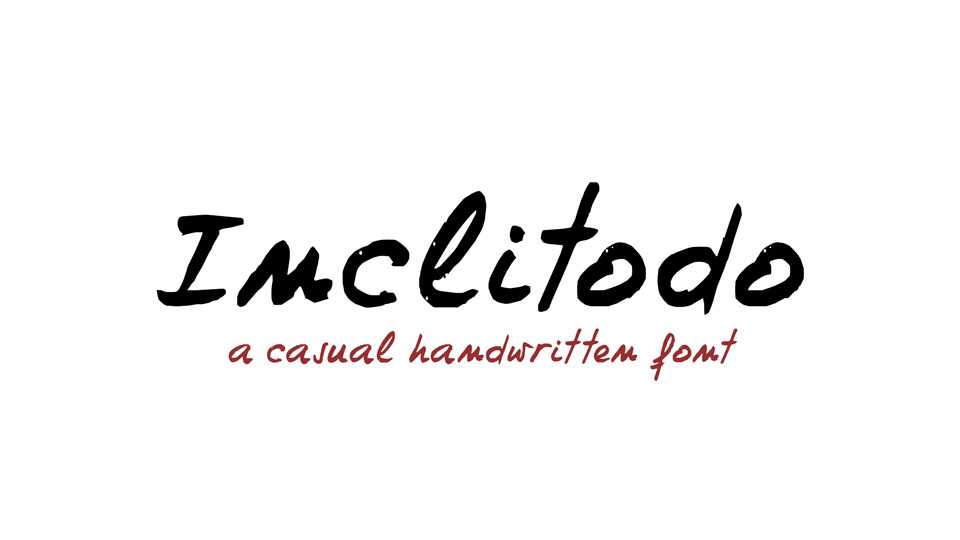
Download Inclitodo font, a casual hand-drawn brush typeface with a natural textured look. Inclitodo is perfect for any design that needs a handwritten feel, such as crafts, notes and quotes, cards and short texts.
Designer: Juan Sanchez